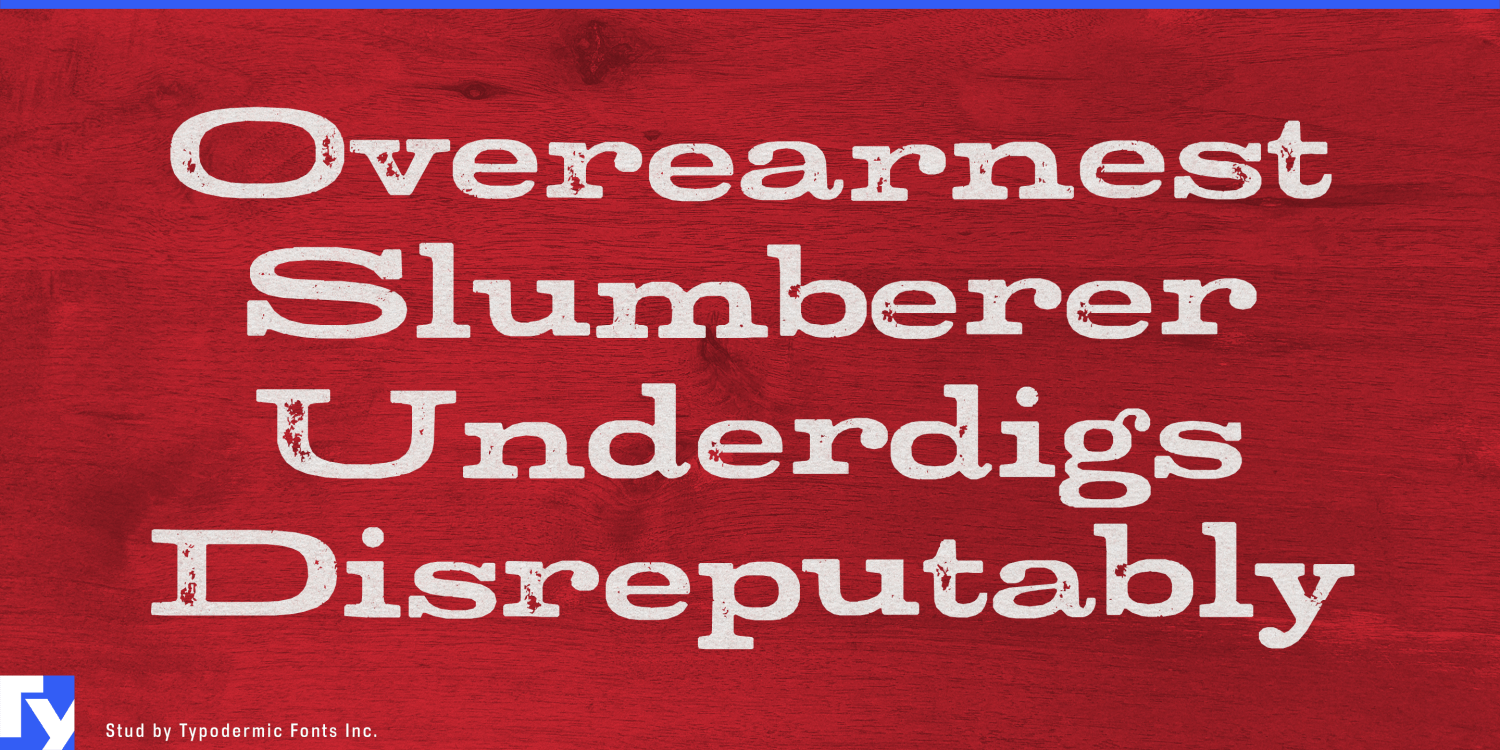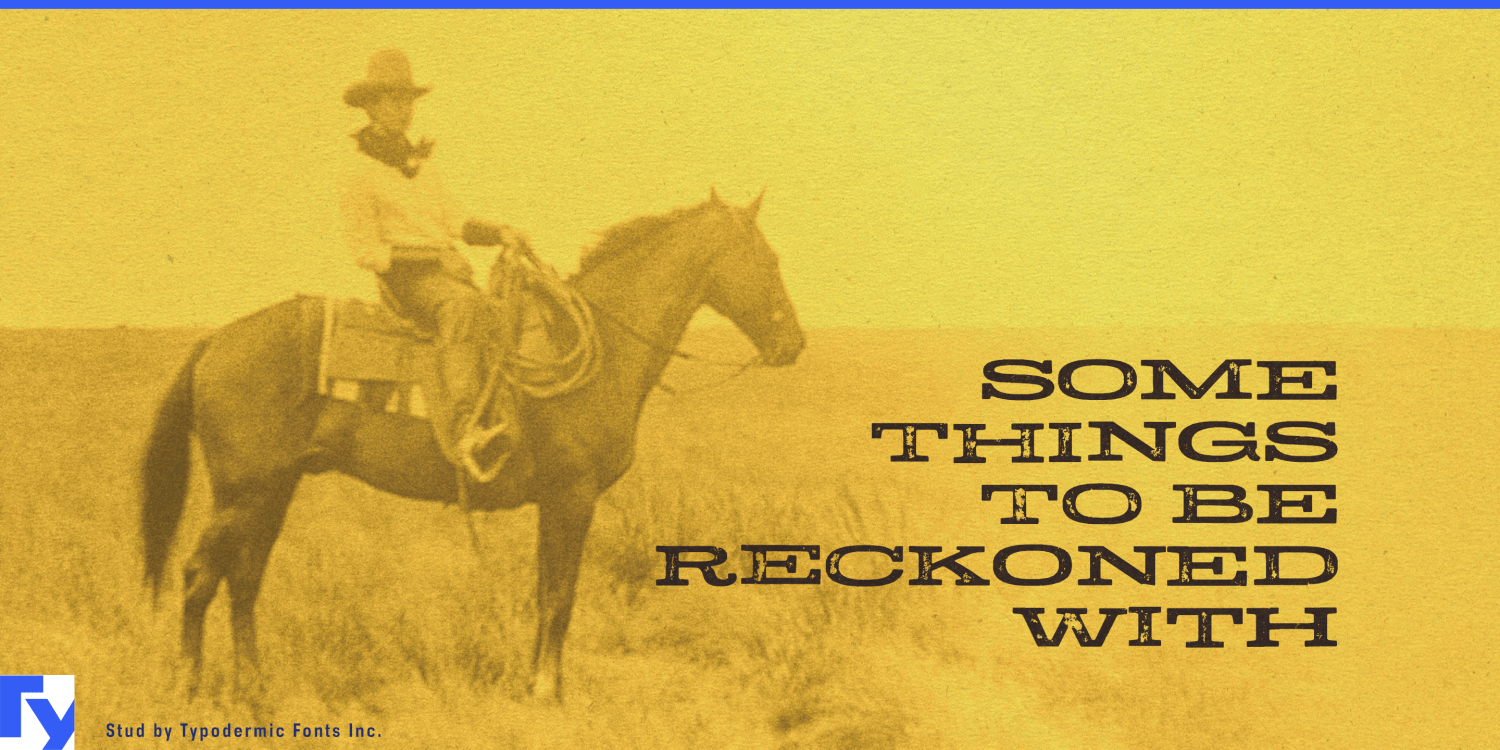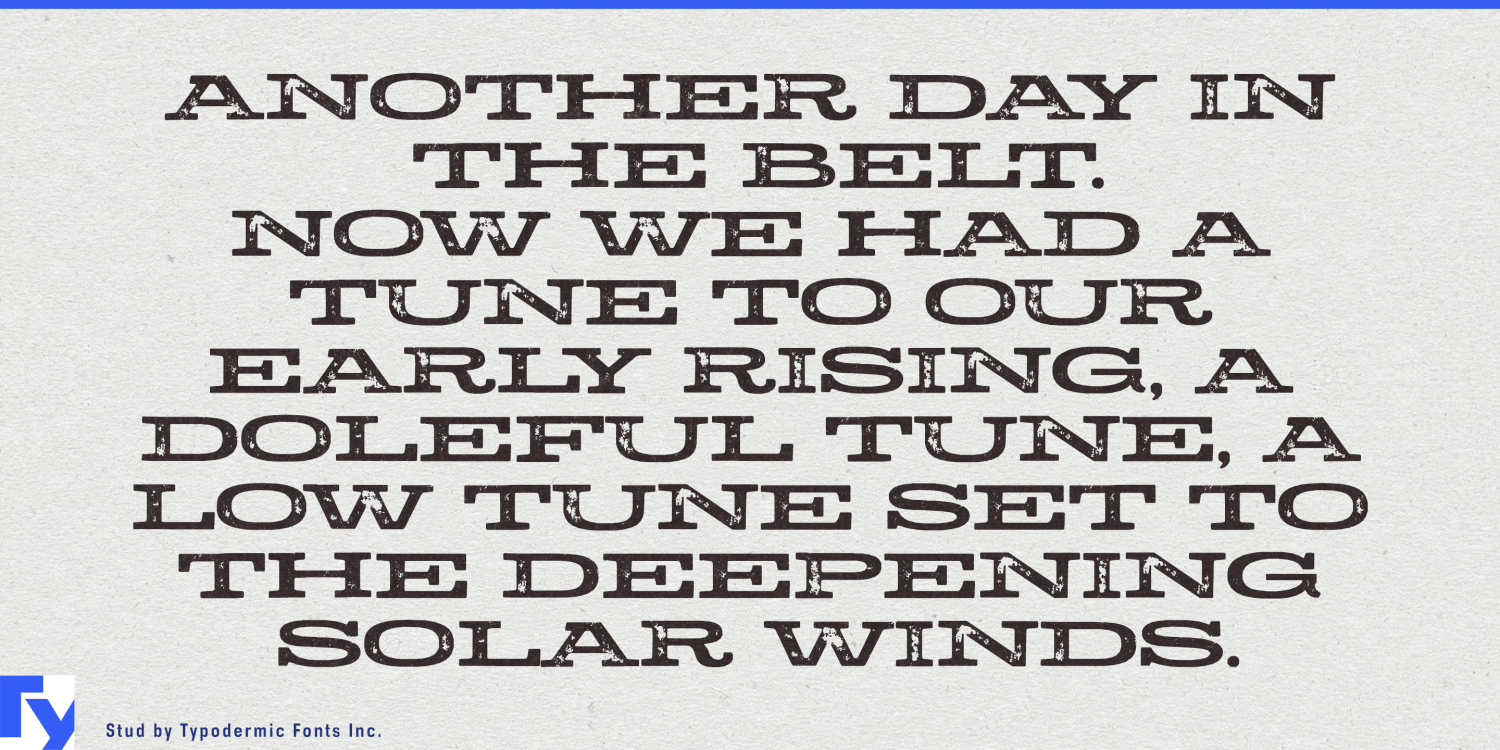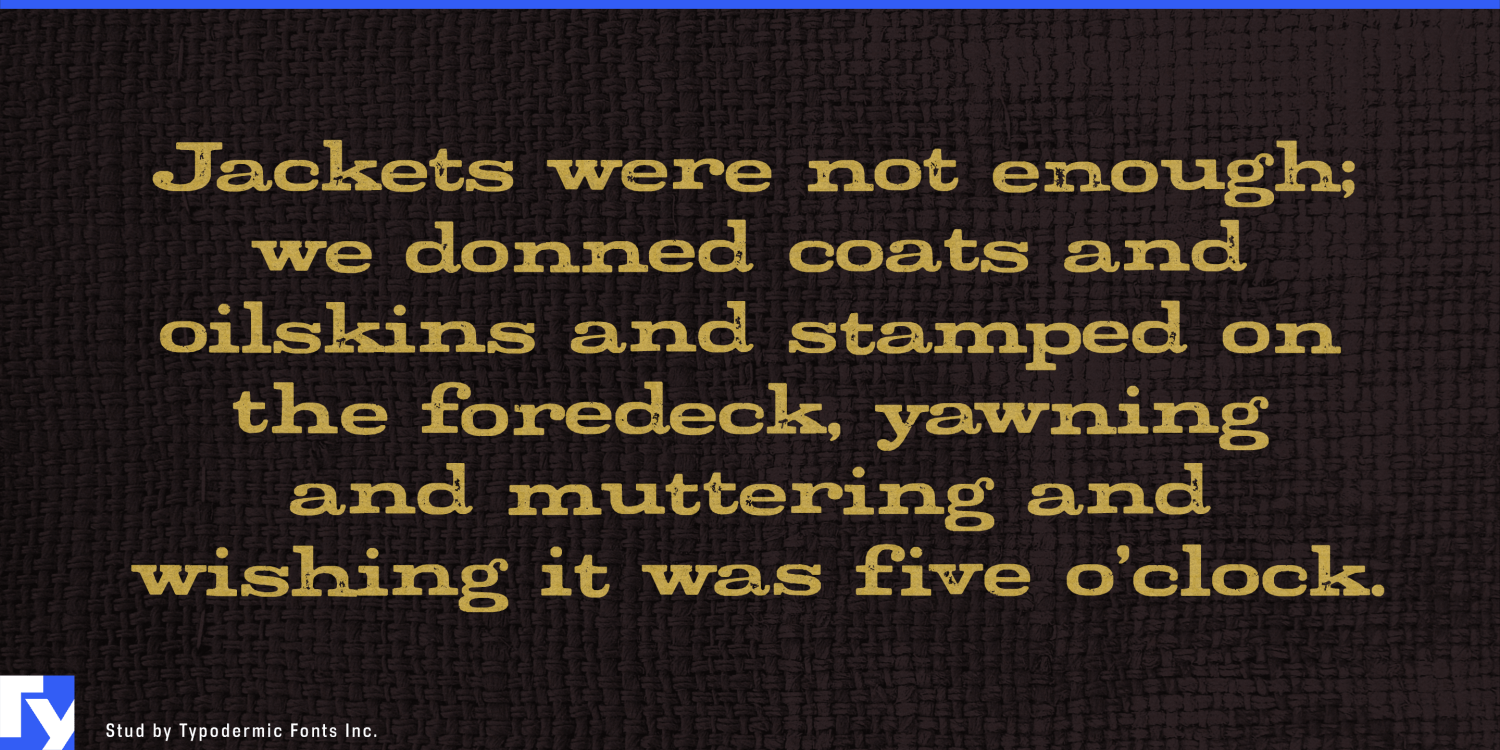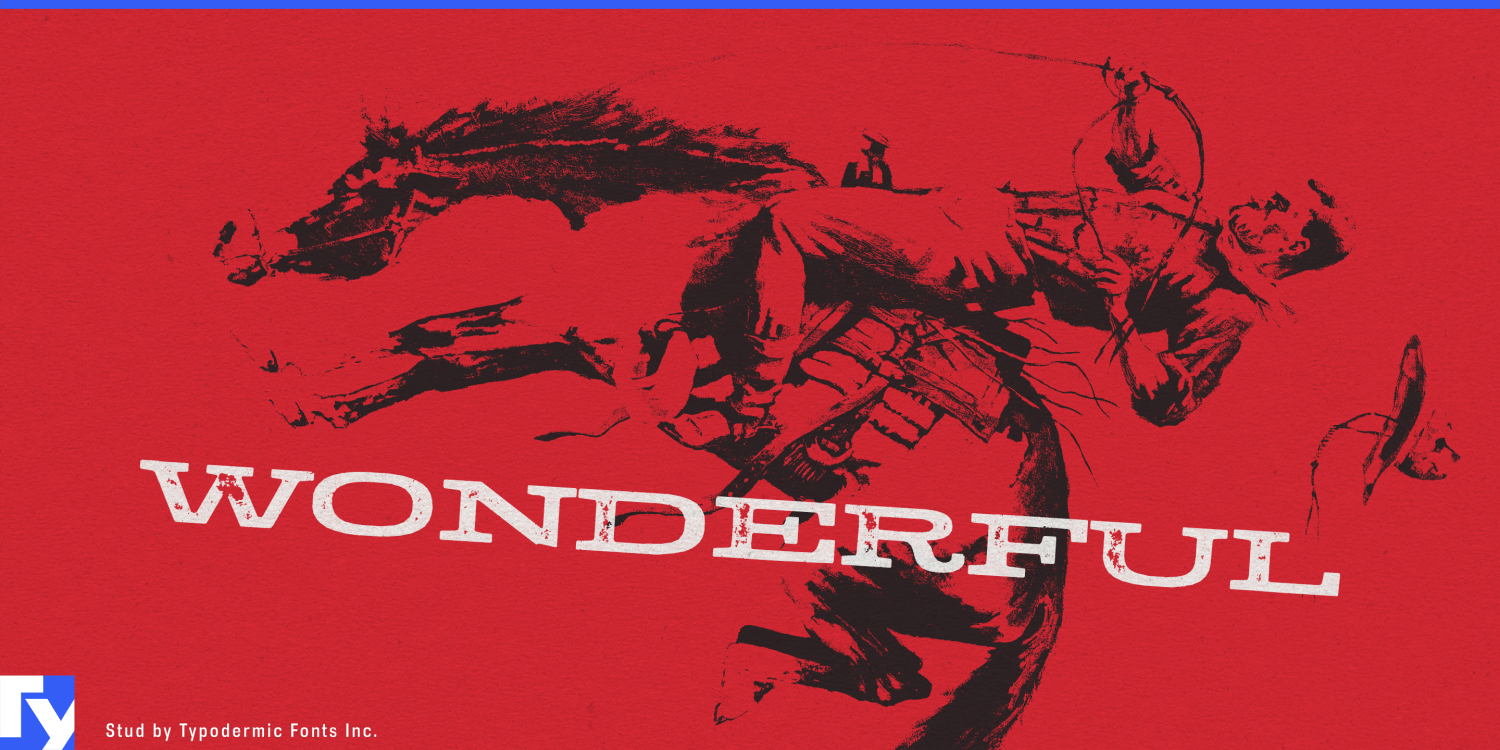
About Stud
Saddle up, partners—it’s time to ride with Stud, the typeface that packs more punch than a bronco at a rodeo. This is a full-blown typographic maverick, ready to lasso attention and wrangle your message into the spotlight. Stud stands tall…